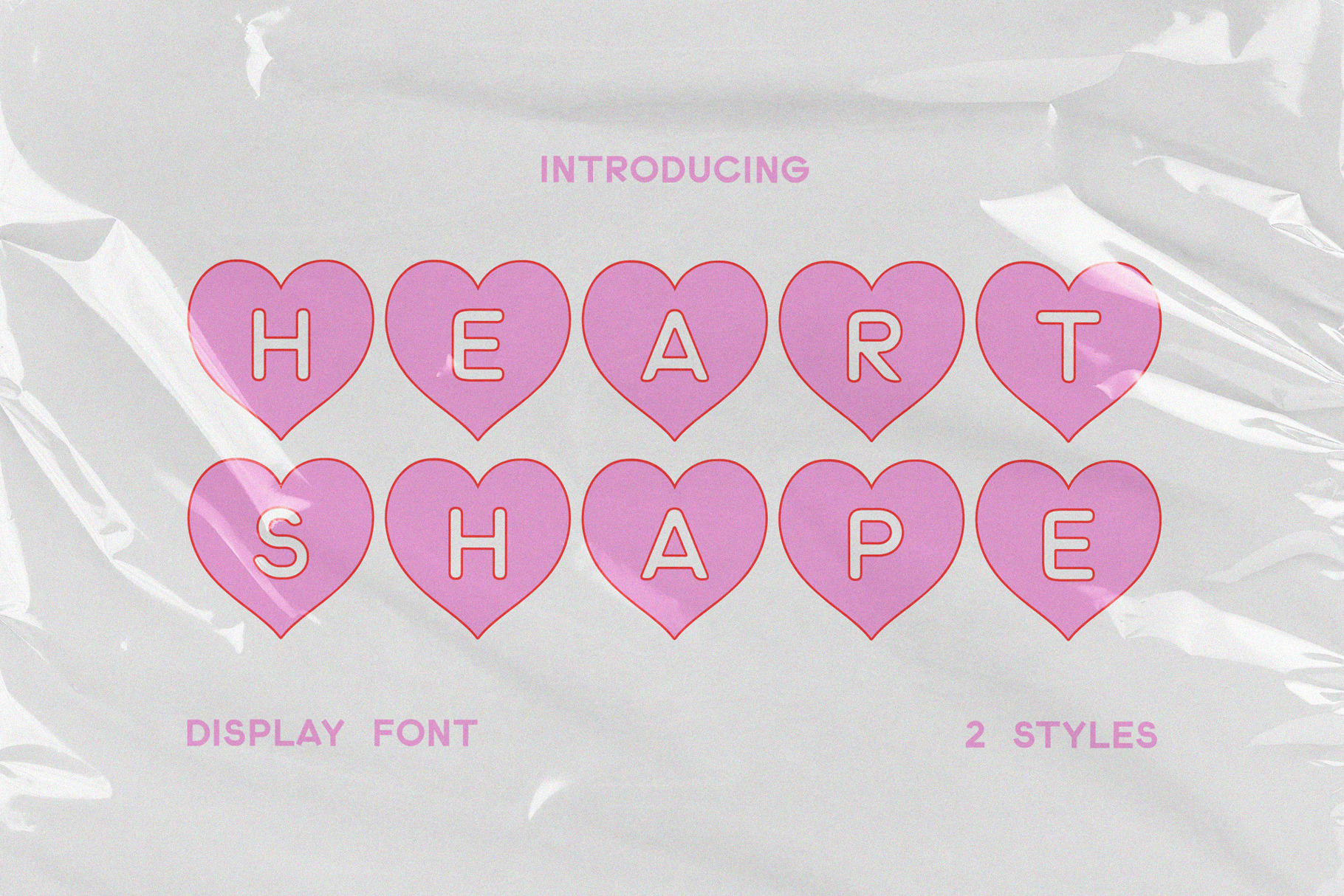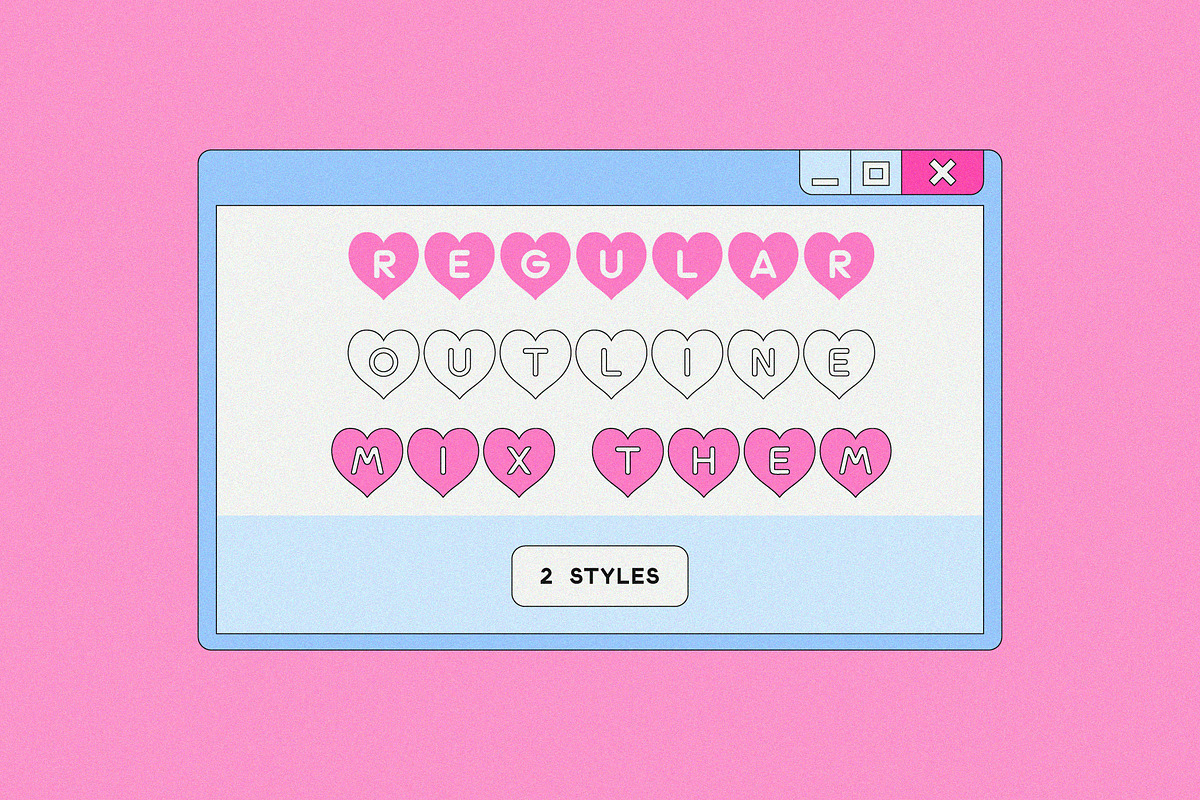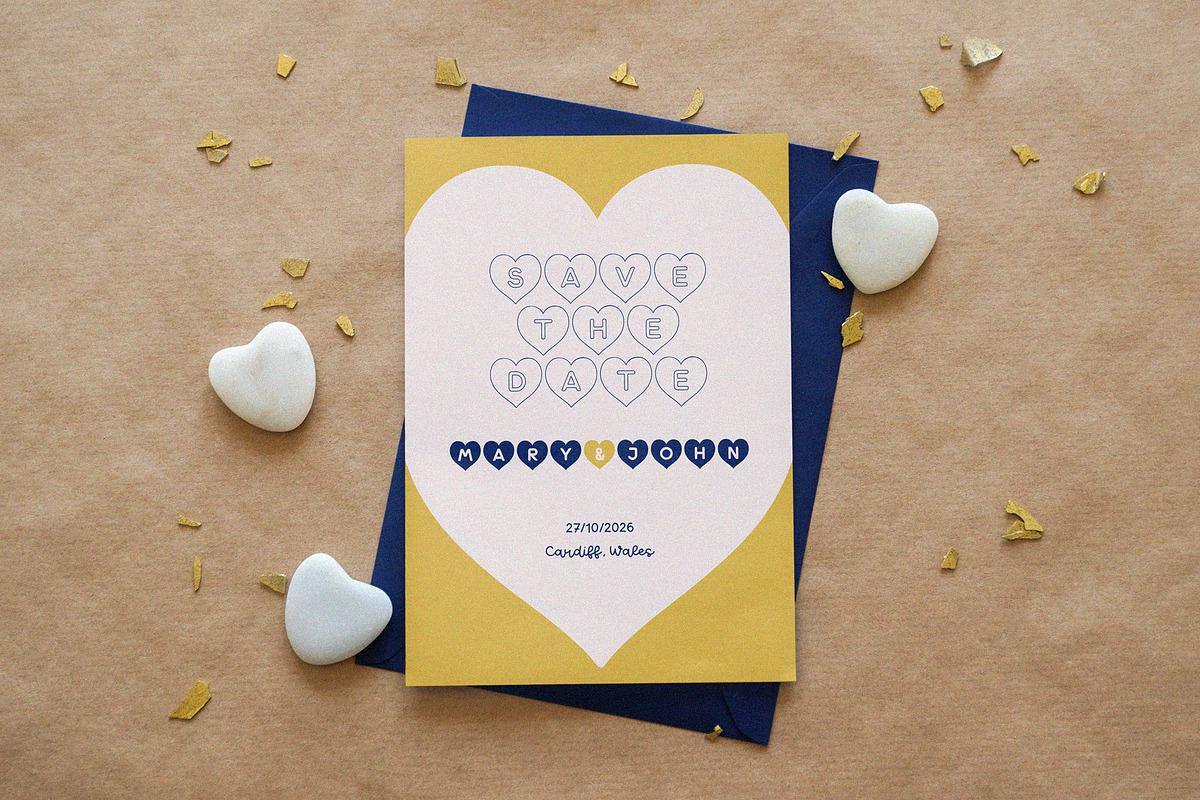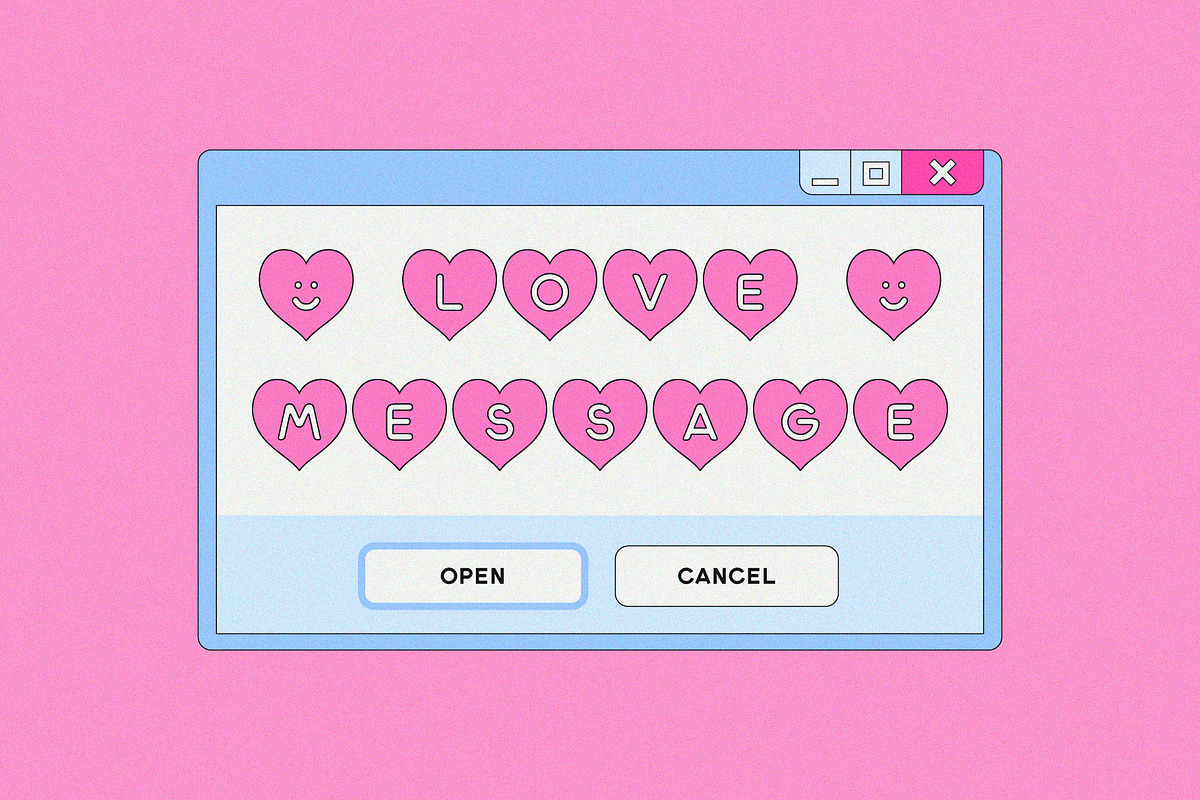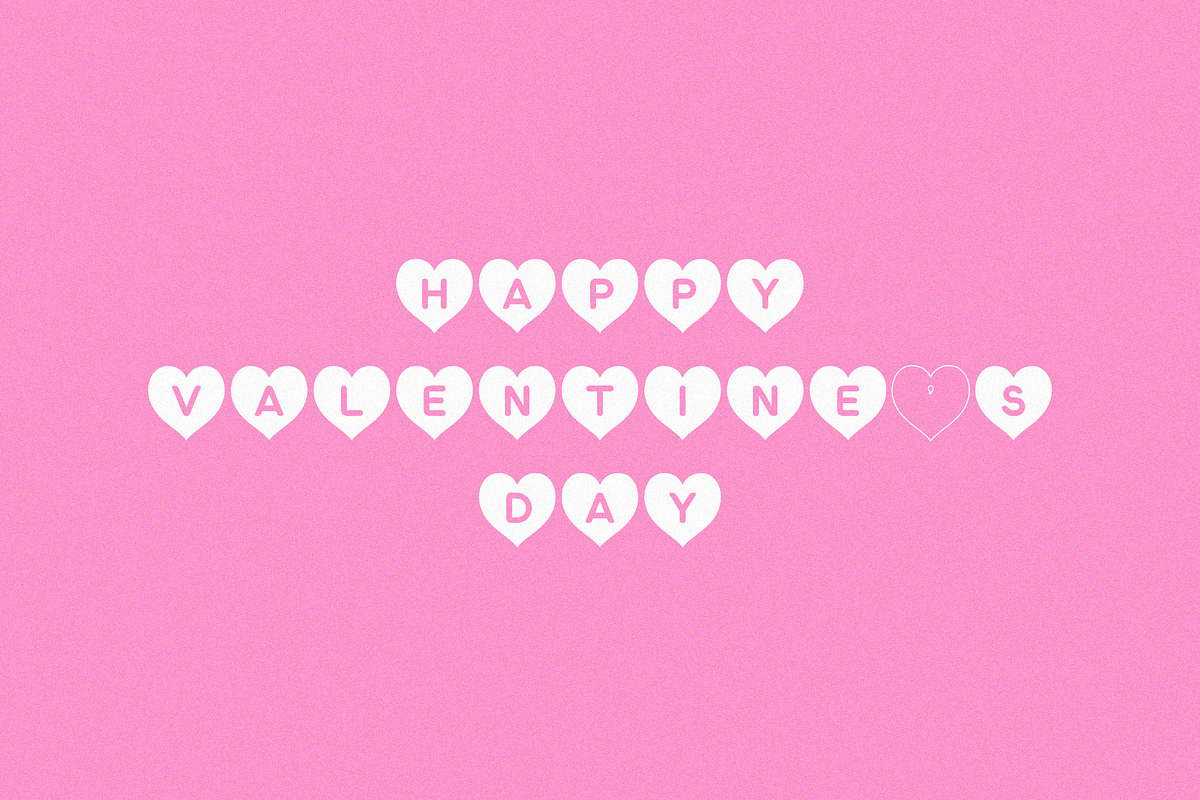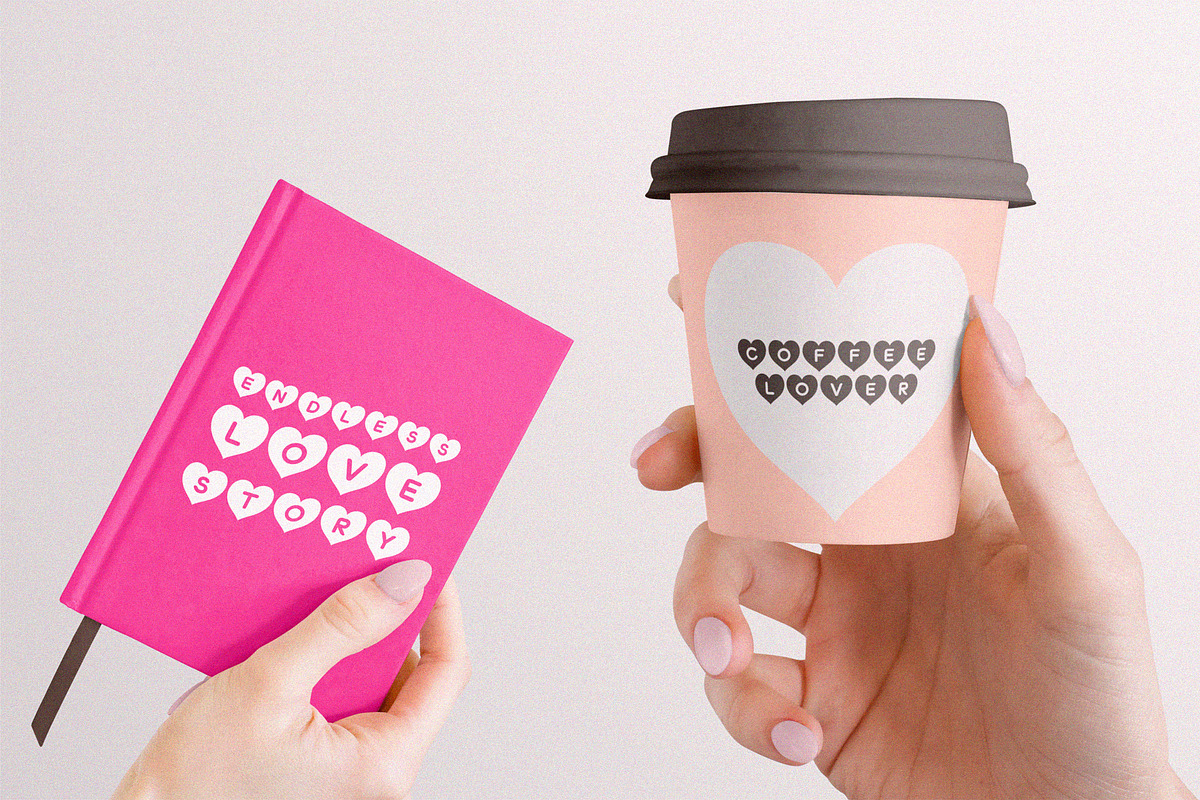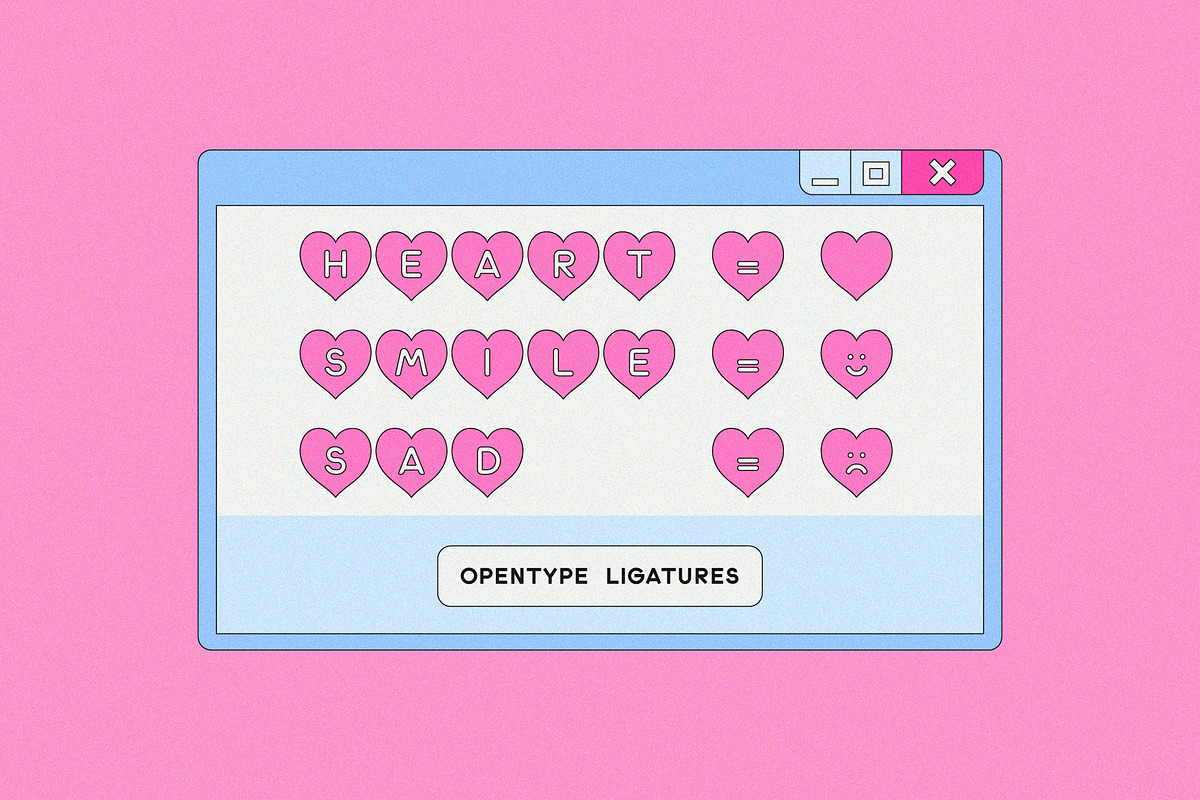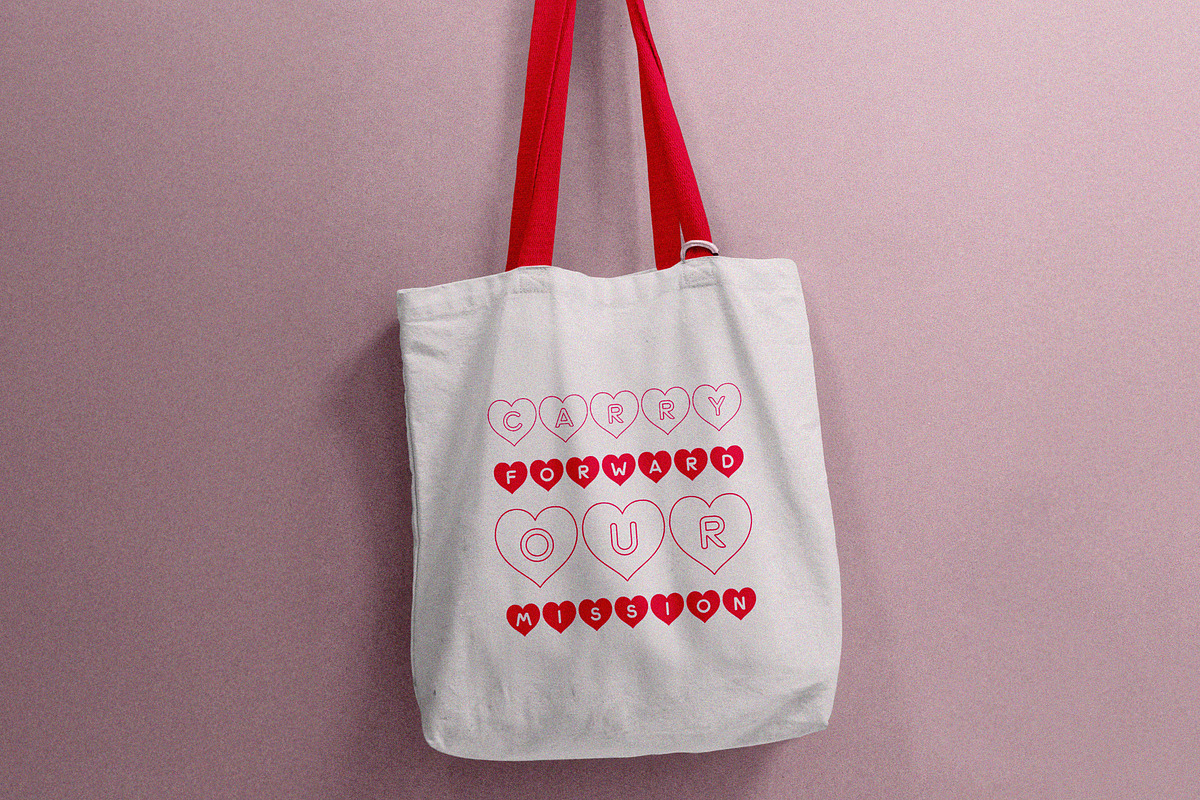
Heart Shape Font
The Heart Shape font is a playful and romantic display typeface designed for Valentine’s Day and love-themed projects. Each letter is creatively formed from interconnected hearts, creating a charming and eye-catching look. The font offers two styles — Regular and Outline — allowing you to blend them for a custom, layered effect. Perfect for capturing the essence of love and affection, this font adds a sweet, heartfelt touch to invitations, titles, and decorative designs.